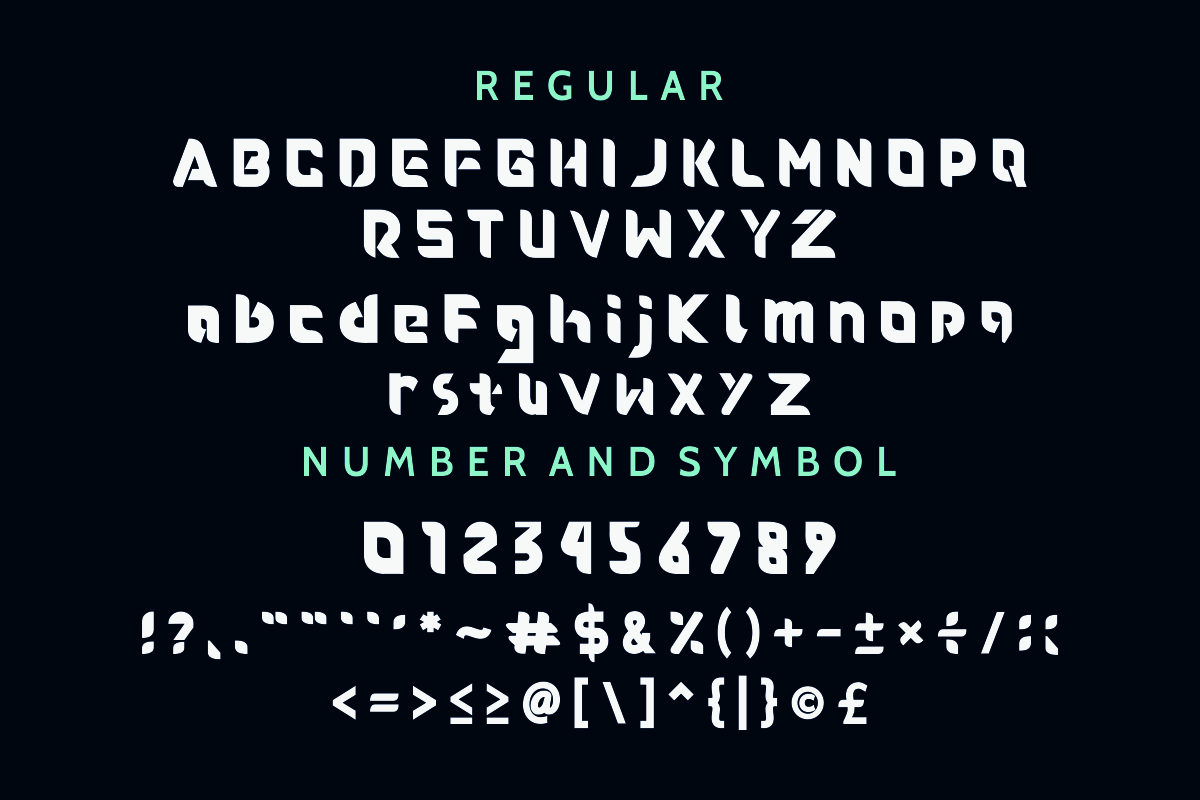
Roundfra Font
Hi Everybody! Introducing our newest font : Roundfra ! First made on 2017, now the font updated and modernized.This is a new modern sport futuristic font. It has a fresh, elegant and stylish glyph .